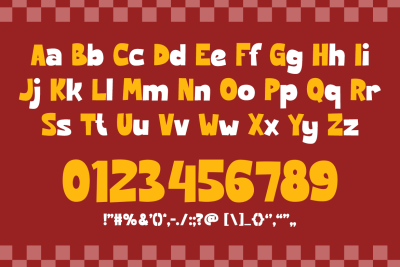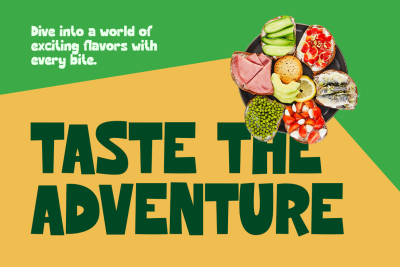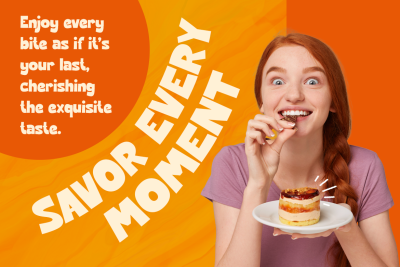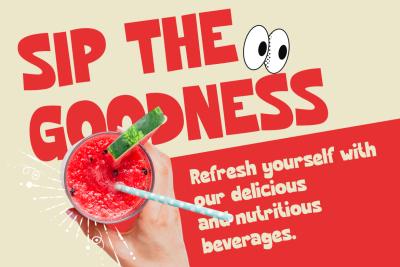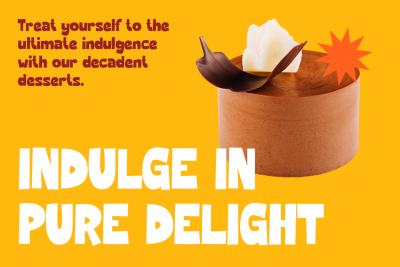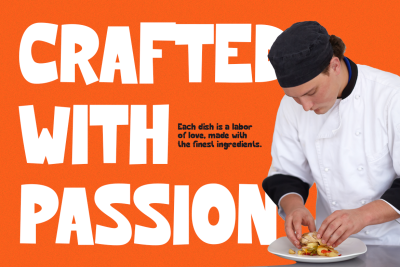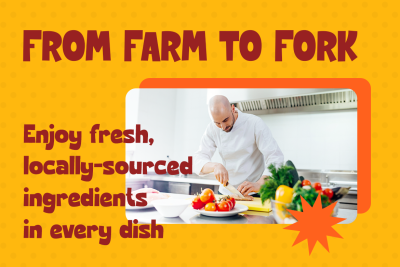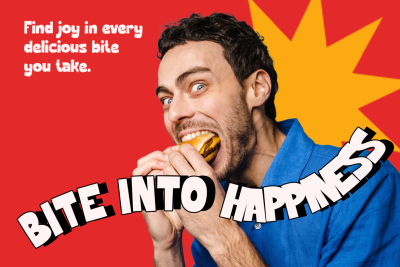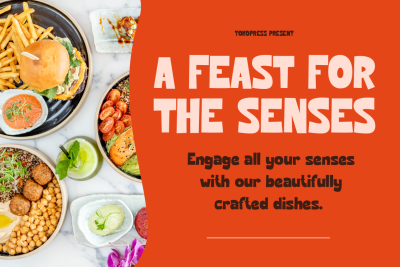
Funny Font Jacenda adds a lively, energetic twist to creative projects. With its chunky, wide letterforms and an eye-catching style, Jacenda immediately makes a strong impression across different design contexts. Perfect for social media graphics, product packaging, and branding, this font blends boldness with a fun vibe. Itโs ideal for brands that want to convey a lighthearted feel. Moreover, Jacendaโs charm shines through, grabbing attention in the best way possible.
Jacendaโs vibrant character suits projects needing an extra dash of personality. Whether youโre designing for headlines, logos, or merchandise, this fontโs unique style brings a fresh, modern touch to your work. Its wide, solid letterforms are both bold and readable, making it ideal for print and digital formats alike. In fact, Jacenda works wonders for brands, events, or personal projects that aim to evoke joy and creativity.
Funny Font Jacenda Perfect for
Jacenda is fantastic for brands aiming to connect with audiences in a playful way. Its bold shapes and expressive lines create an unforgettable look. For food brands, event promotions, childrenโs products, or any project that radiates positivity, this font is an excellent fit. Jacendaโs distinct form not only enhances visual appeal but also helps designs stand out, drawing immediate attention. Additionally, it adapts seamlessly to various color schemes, making it versatile for vibrant or minimalist backgrounds.
For posters, packaging, or social media posts, Jacenda delivers a unique sense of excitement. While the wide letters feel friendly, they are also substantial, making text both approachable and memorable. This font has the potential to elevate your design, transforming simple messages into bold statements. For creators who want to make a lasting impact, Jacenda brings an energy that keeps audiences engaged from start to finish.
Versatile for Print, Digital, and Brand Identity
Funny Font Jacenda is highly versatile across different applications. Not only is it a strong choice for digital assets like banners and social media ads, but Jacenda also works beautifully in printed materials like brochures or signage. Designers, marketers, and content creators alike find Jacenda fitting well with modern, upbeat aesthetics. Plus, it provides excellent readability, even in longer text blocks, thanks to its clear, rounded forms and smooth edges.
Whether youโre creating headlines, playful logos, or animated characters, Jacenda has the presence to capture attention. It shines particularly in fun, informal settings, helping brands communicate in a friendly and memorable way. With Jacenda, your designs donโt just informโthey make a statement that audiences will remember.